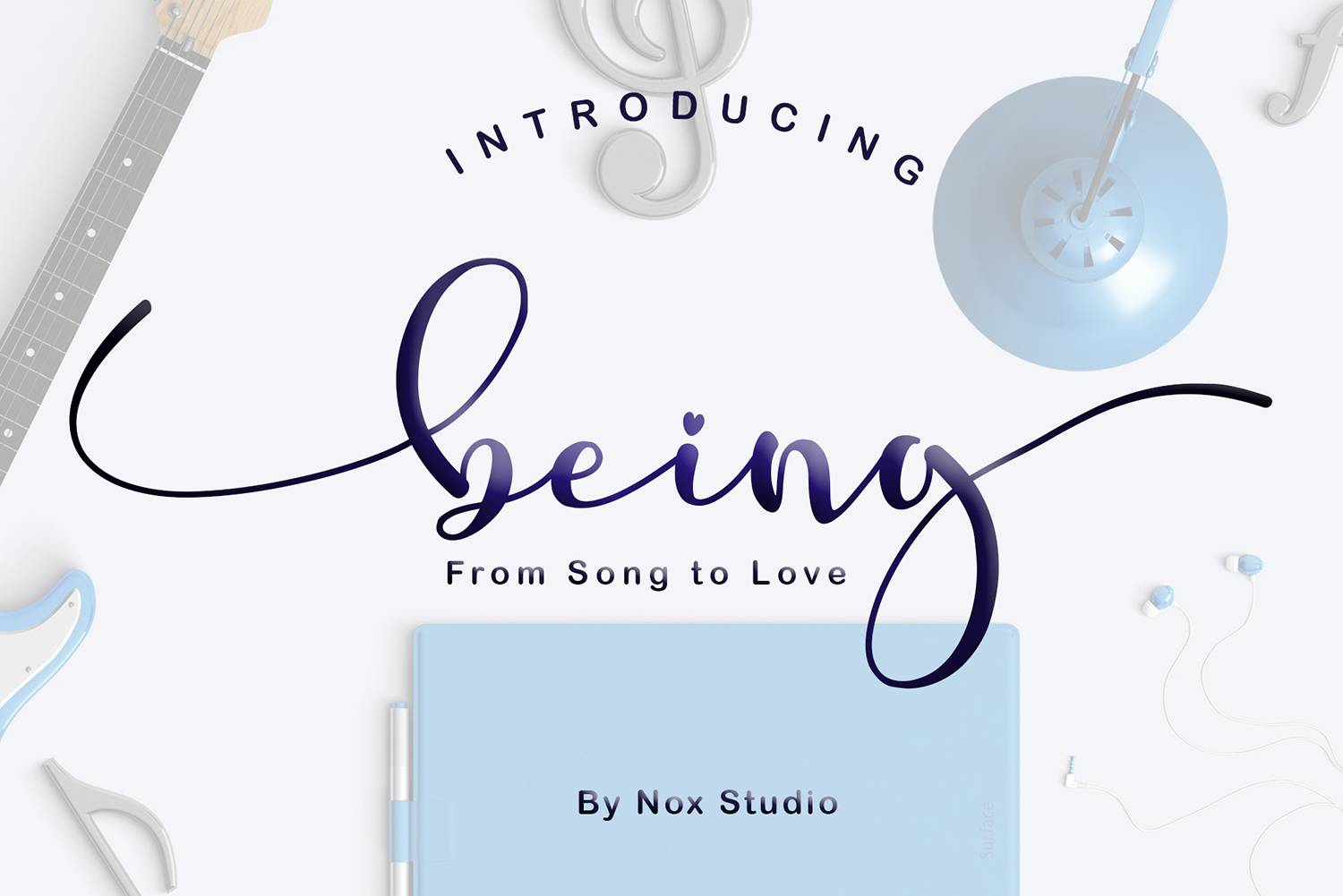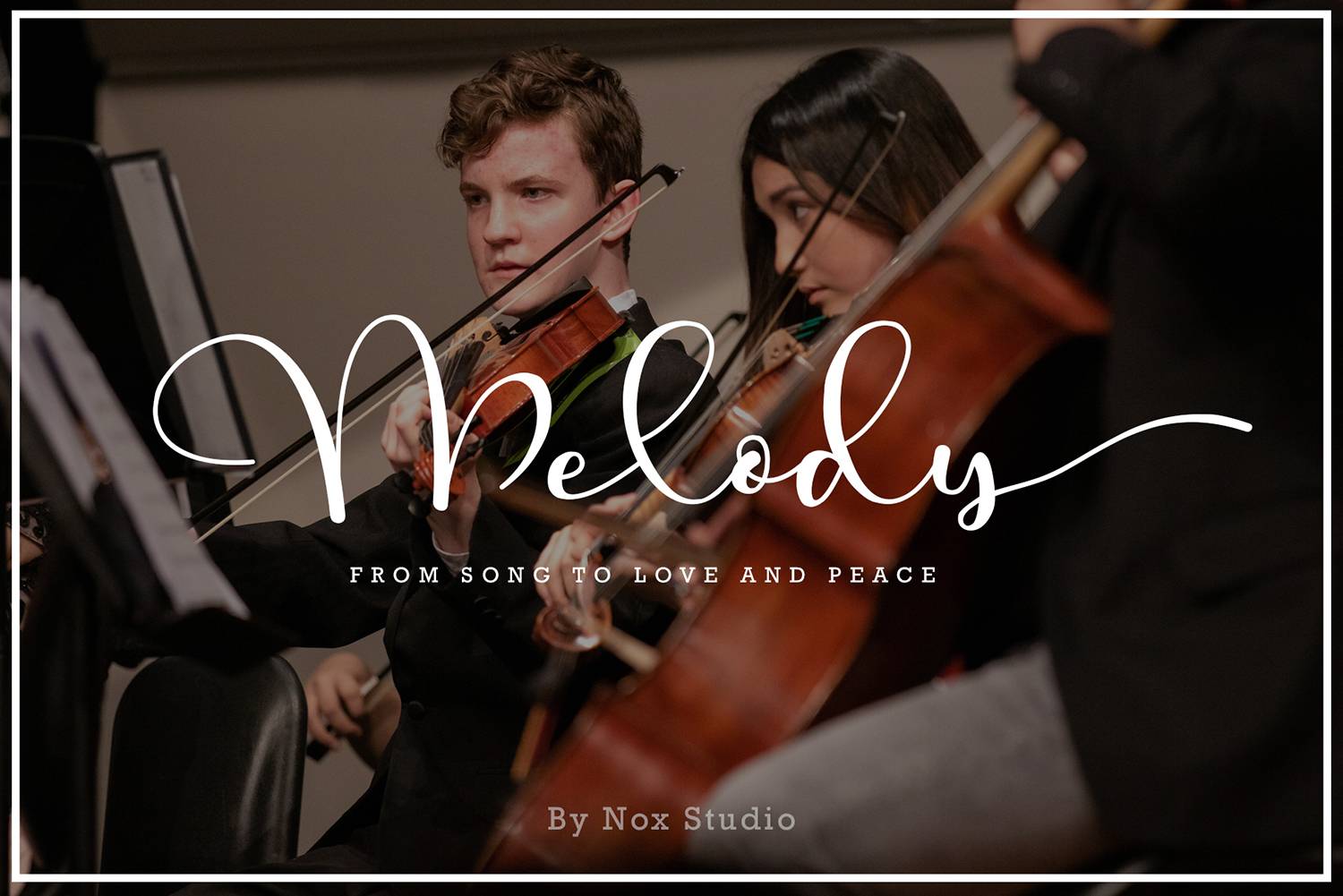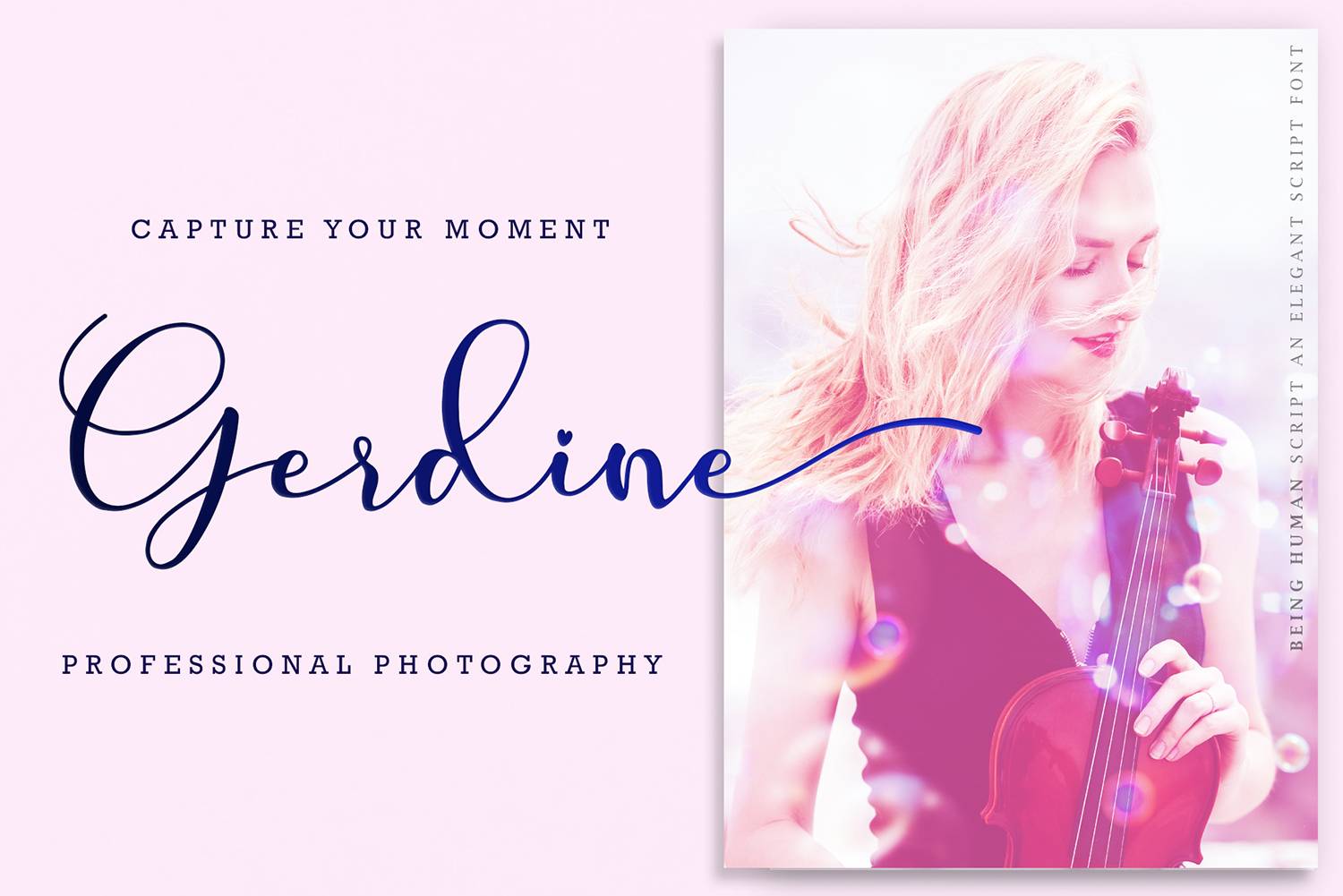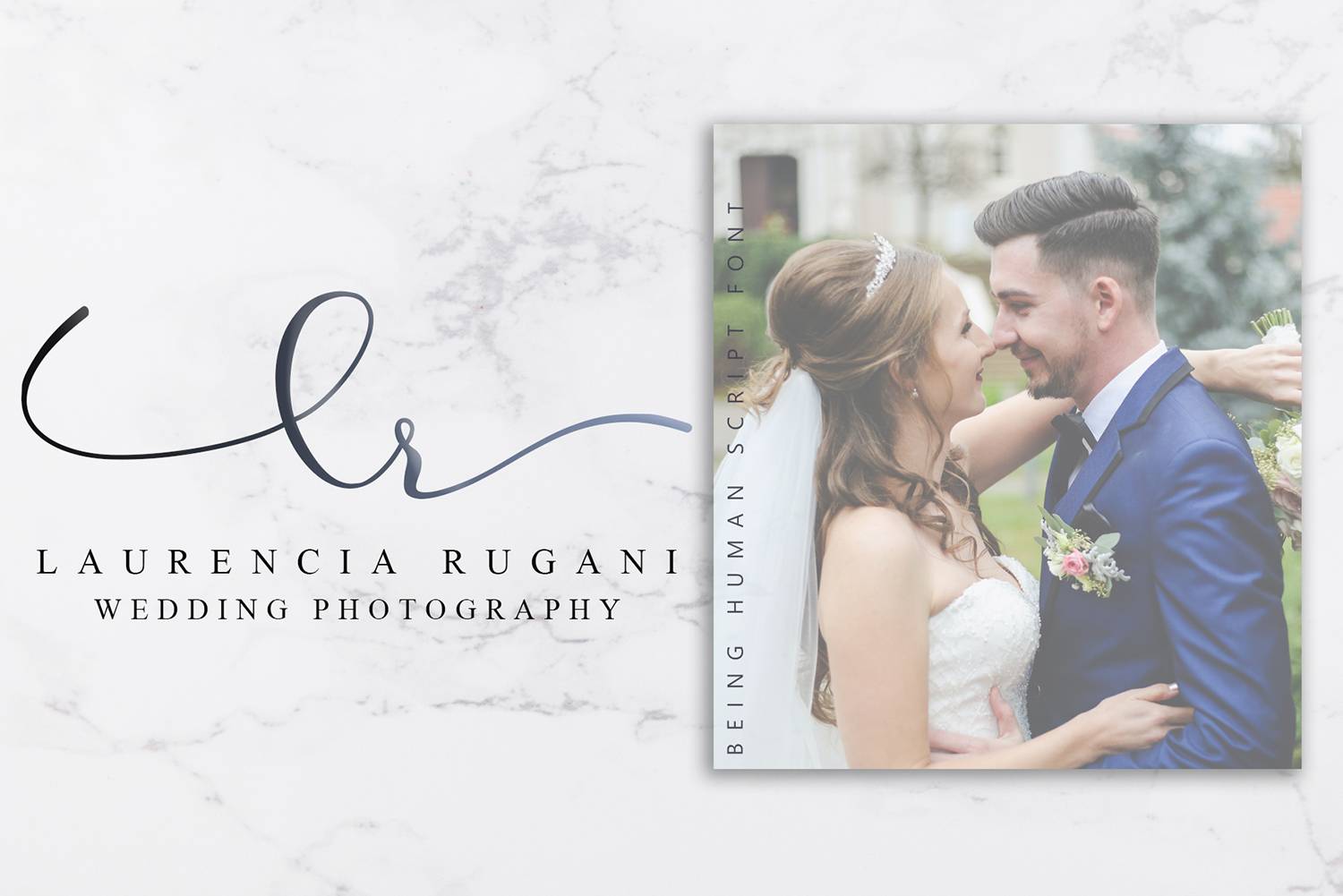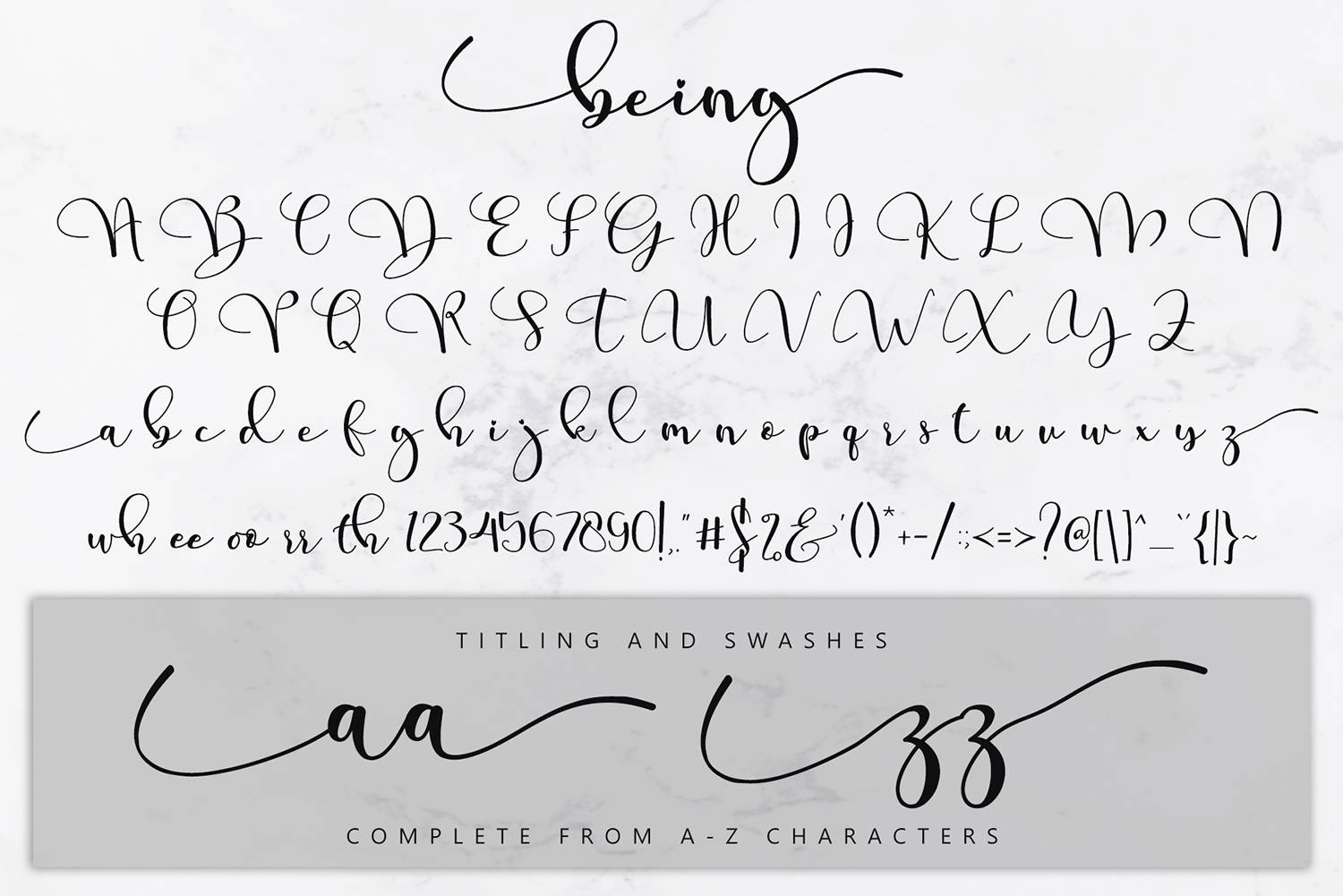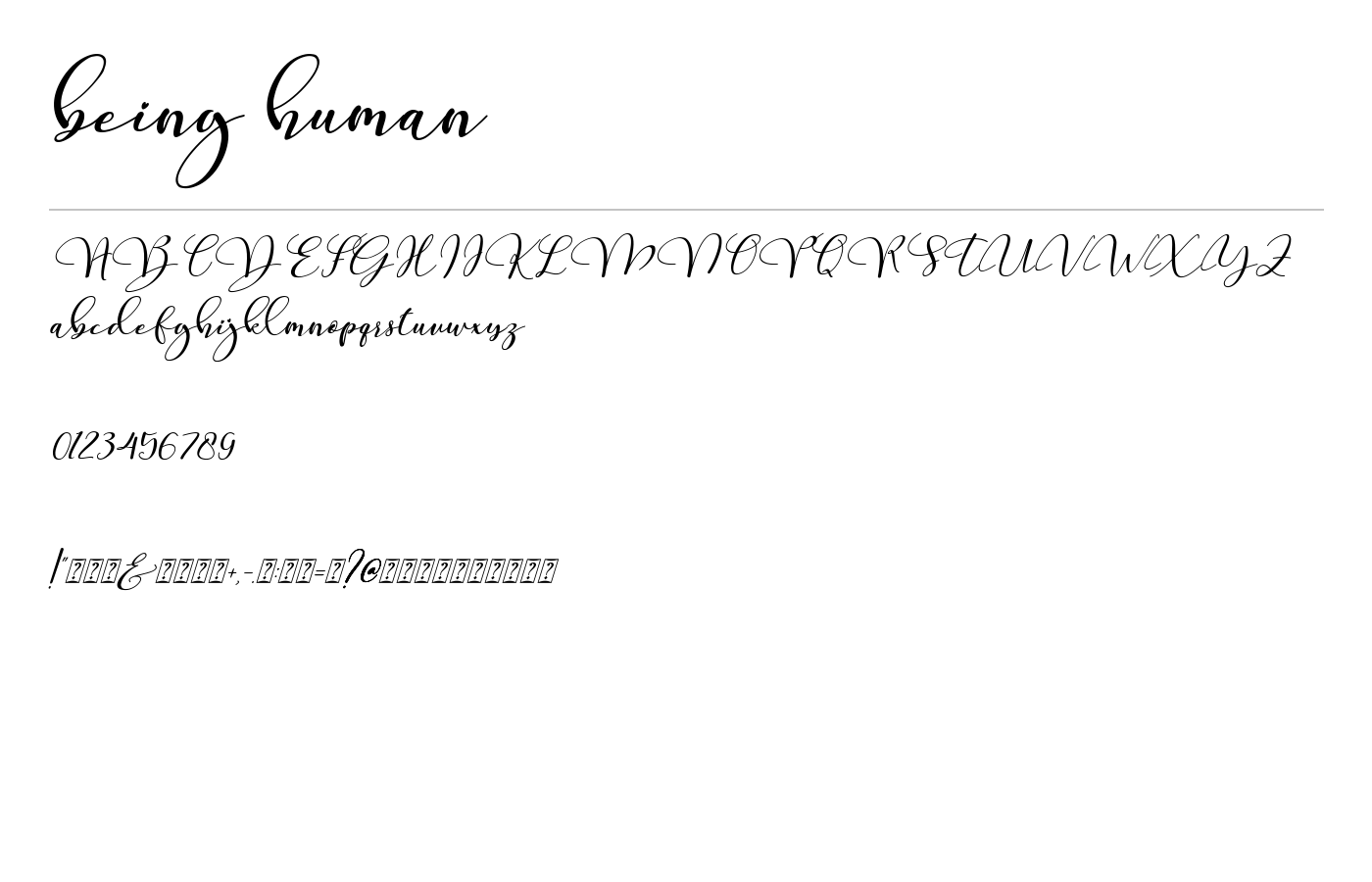
Being Human Font is an elegant, flowing script typeface with delicate, high-contrast strokes and graceful swashes. Its stylish, calligraphic letterforms convey a personal, sophisticated feel, making it ideal for branding, invitations, and editorial work that seeks a refined and intimate touch. This font shines in contexts where elegance and a handcrafted vibe are essential.
Being Human Font
About Being Human Font
| Font family | Being Human Font |
| Release date | 2021-01-17 |
| Designer | Nox Studio 2021 |